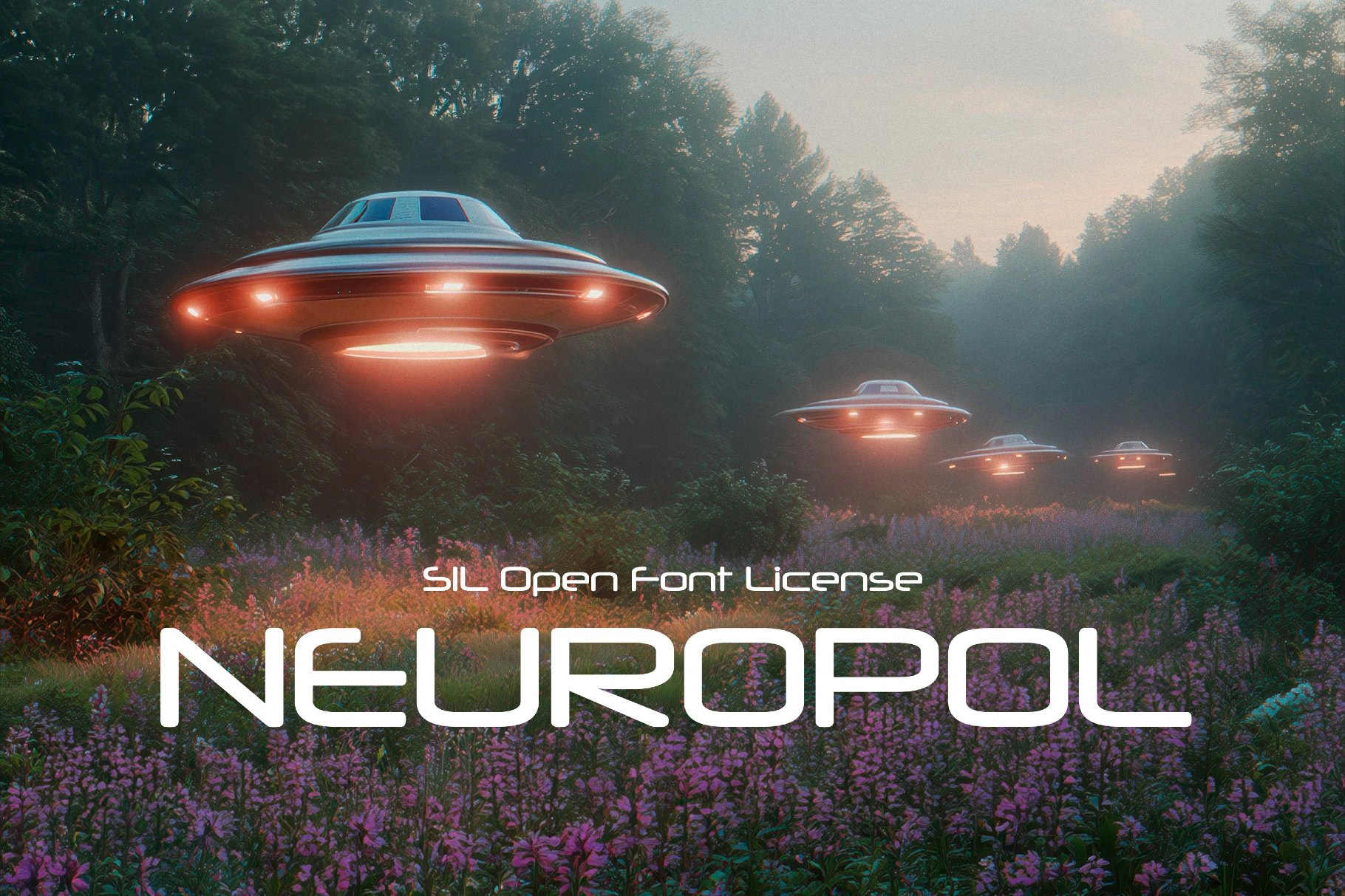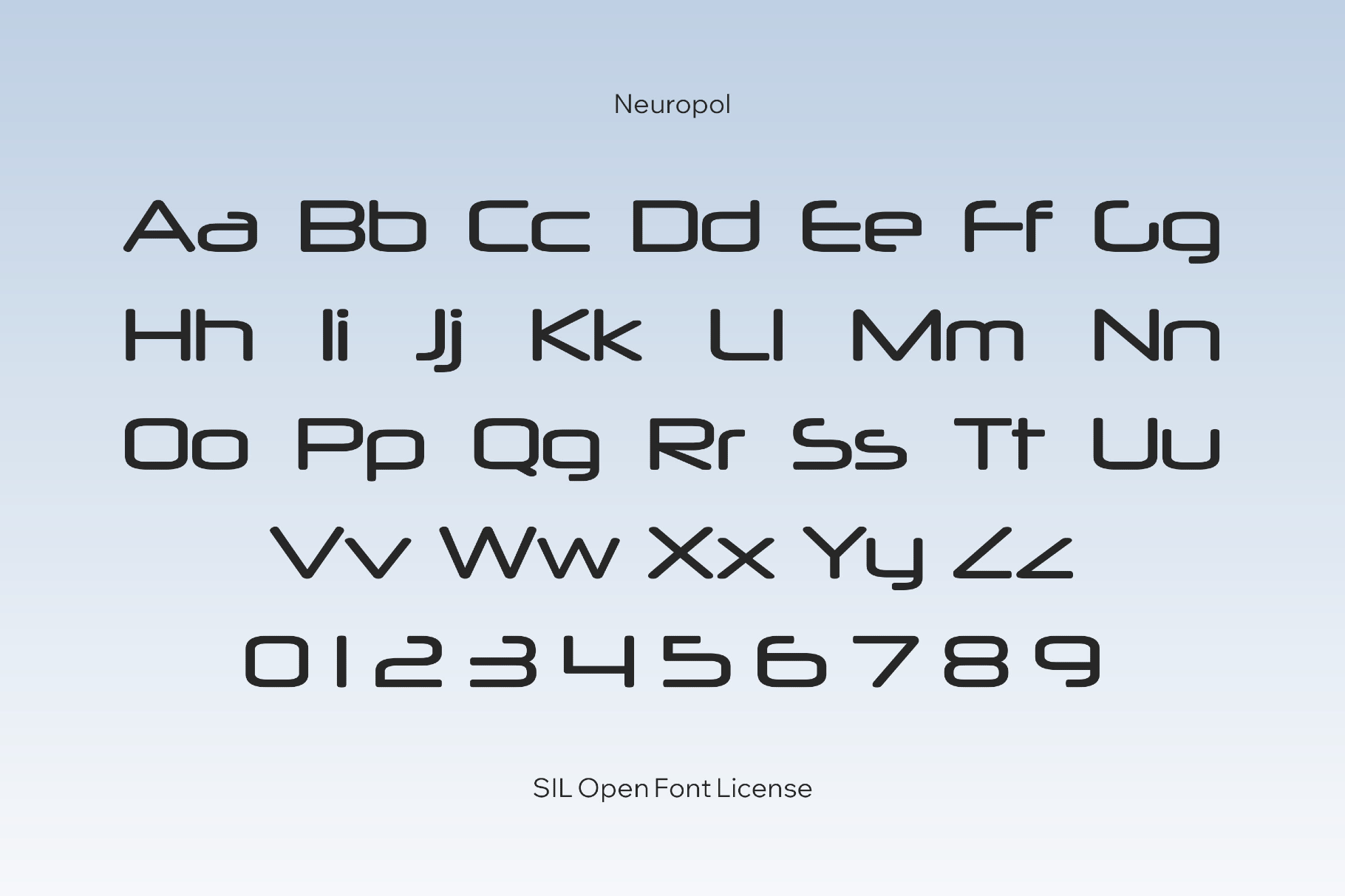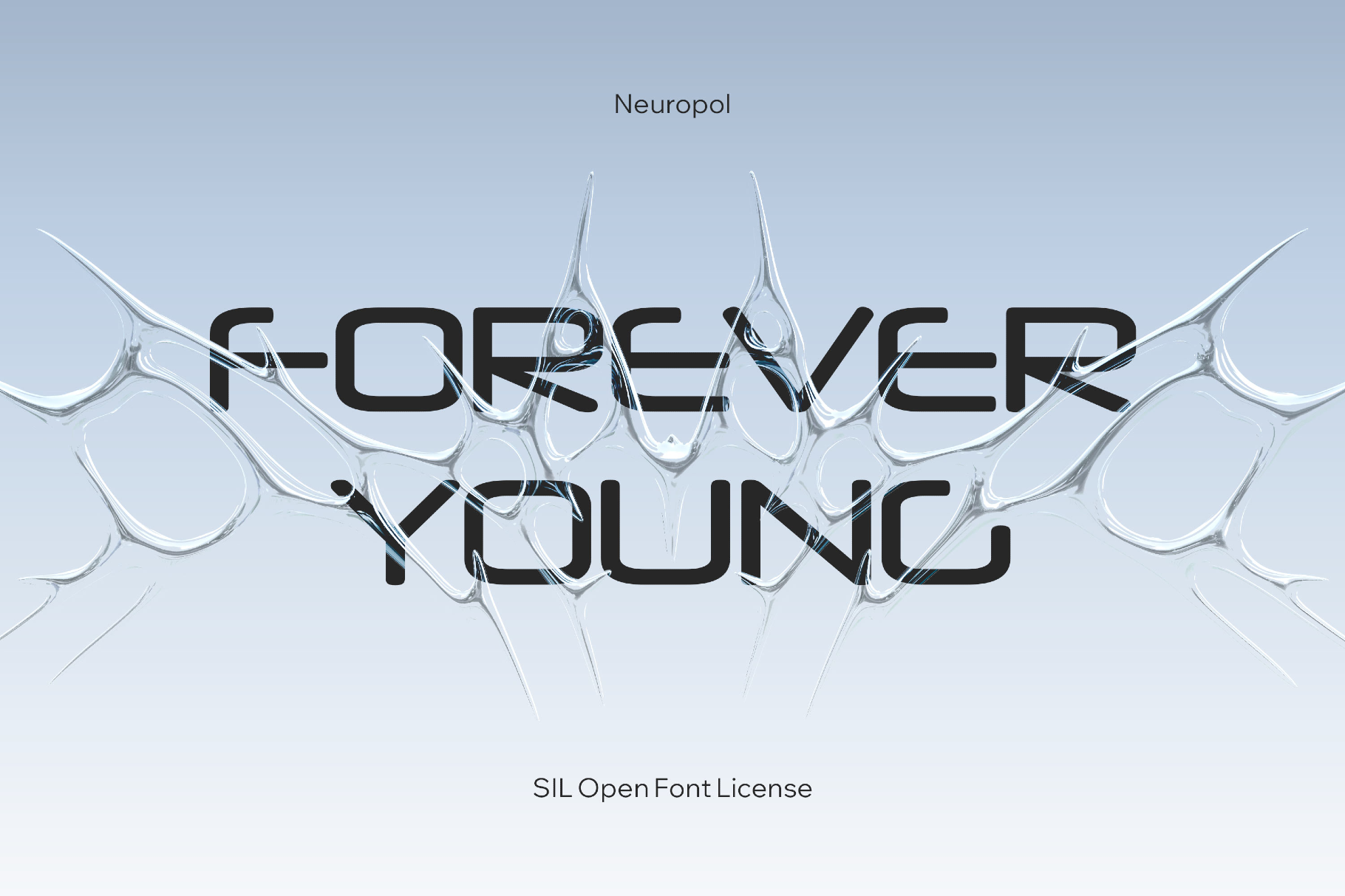
Neuropol Y2K Font
Neuropol
Neuropol is a sleek, techno display font with squared curves, cropped corners, compact, even letterforms, and calibrated spacing that recalls late-’90s sci-fi title sequences or cyberpunk UI overlays. It’s a strong fit for futuristic logos, film or game titles, tech branding, poster headlines, electronic music artwork, data visualizations, streaming overlays, interface mockups, high-impact motion graphics, release dates, and product names in bright all-caps or mixed-case lines.
- International characters with multilingual support across extended Latin and Cyrillic scripts.
- Extended support for mathematical symbols and metrics.